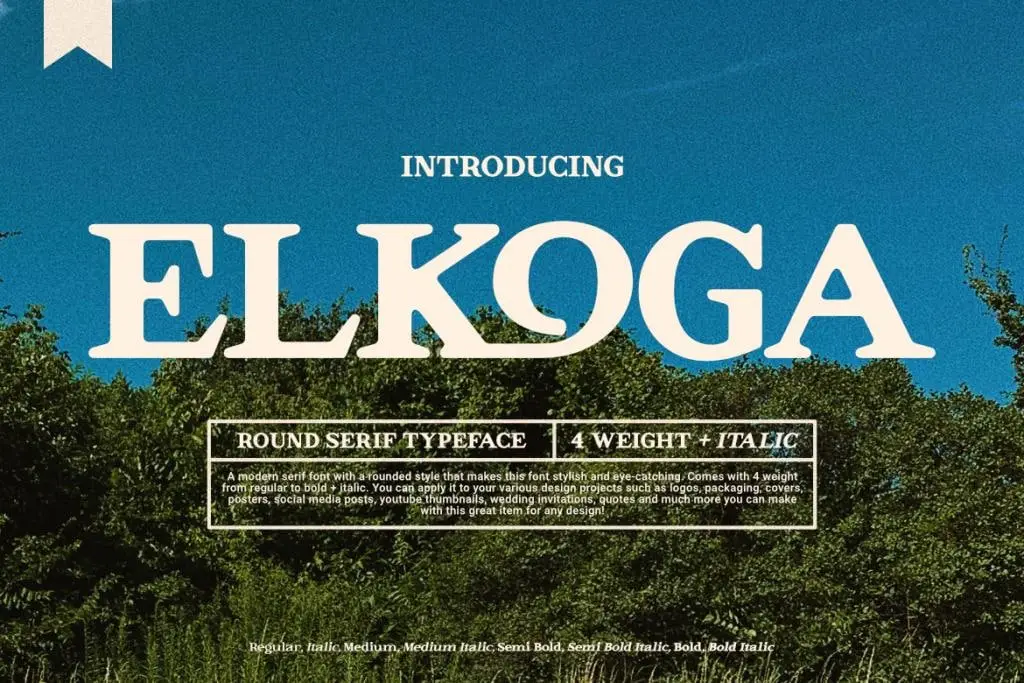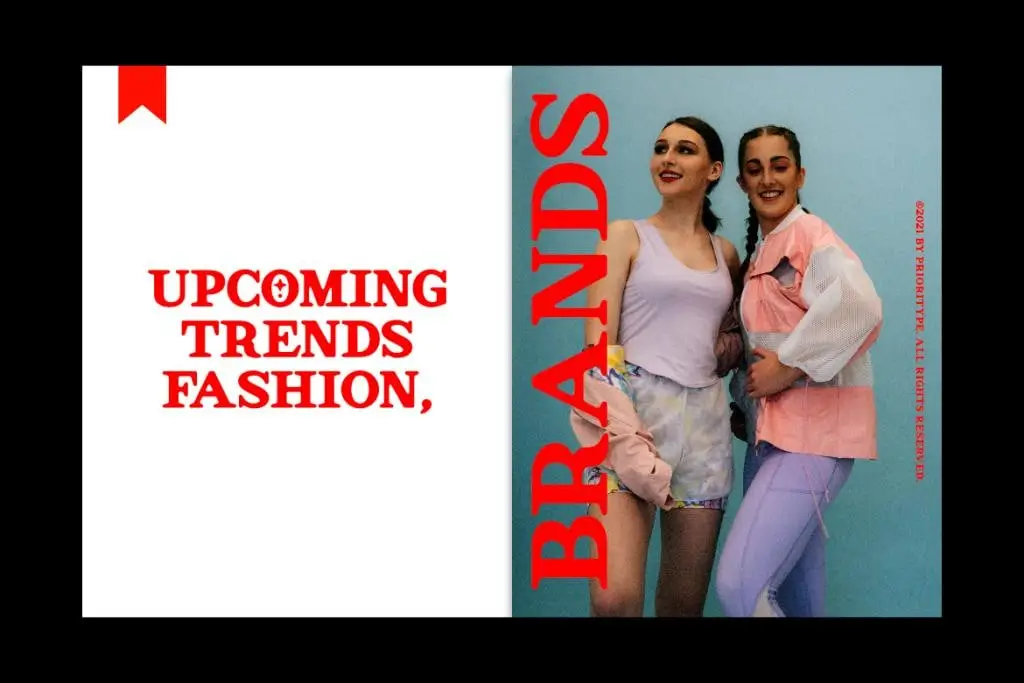
Prioritype-Elkoga Font Family
The Prioritype-Elkoga Font Family is a versatile typeface designed for a variety of applications. With its unique blend of modern and classic styles, this font family is perfect for branding, logos, web design, and print materials.
• Styles: Available in multiple weights to suit different design needs.
• Ideal for creating eye-catching logos and branding materials.
• Great for web applications and user interfaces due to its readability.
• Use in print projects like brochures, posters, and business cards for a professional touch.